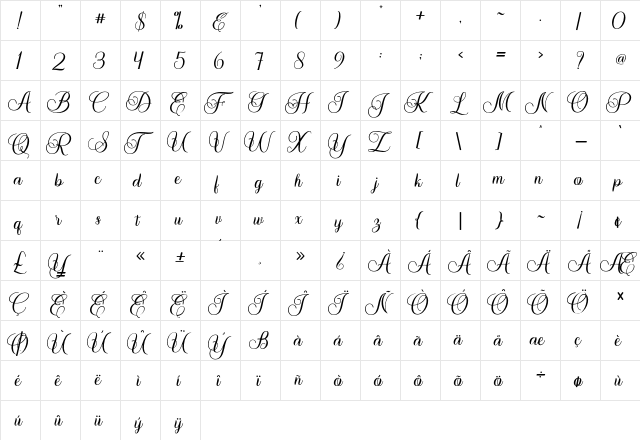
Marchanda Regular
| Foundry | MegaType |
| Designer | MegaType |
Design Context for Marchanda Typeface
Marchanda flows with the natural rhythm of handwritten lettering, making it ideal for designs that call for warmth and personal expression.
Font Pairing: Combine Marchanda with a simple geometric sans for maximum contrast — the tension between flowing curves and clean structure is a classic typographic pairing.
Pro Tip: Use Marchanda for short runs of text — names, titles, or taglines. Extended body copy in script faces tires the eye quickly.